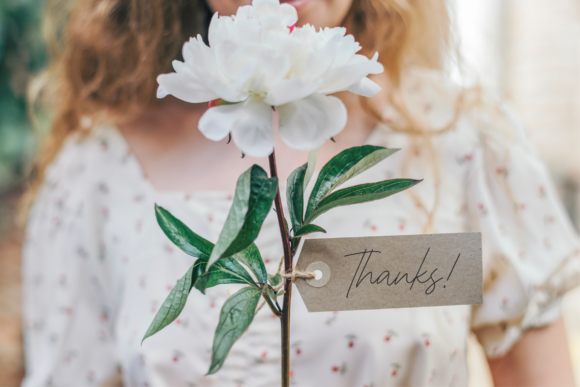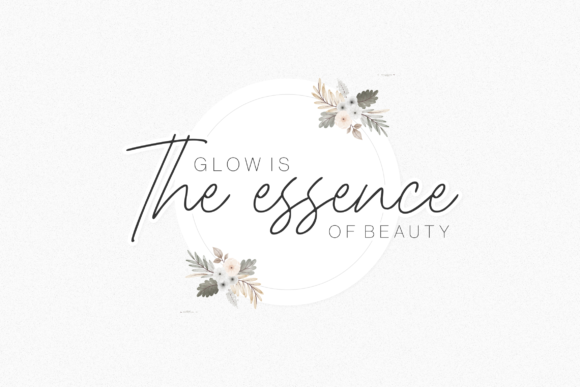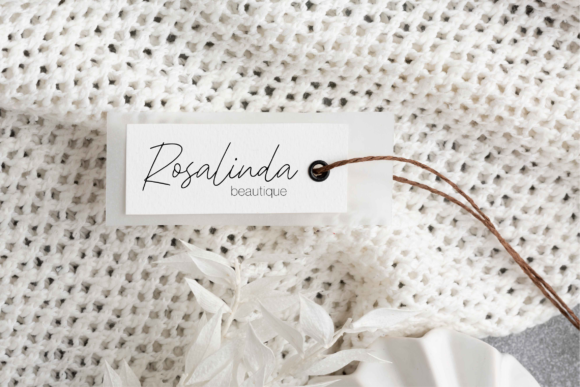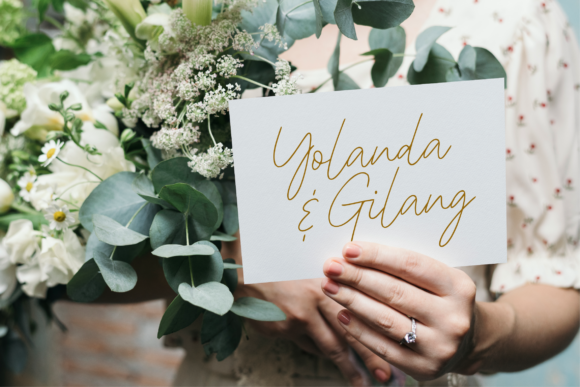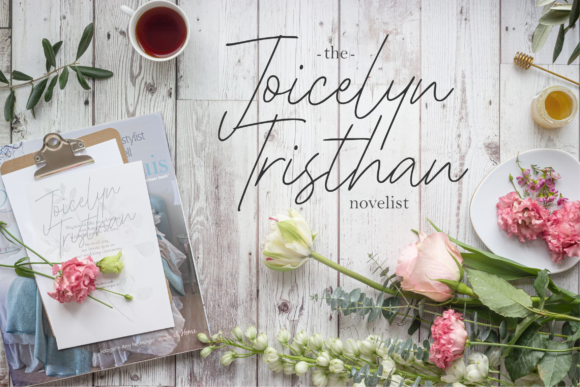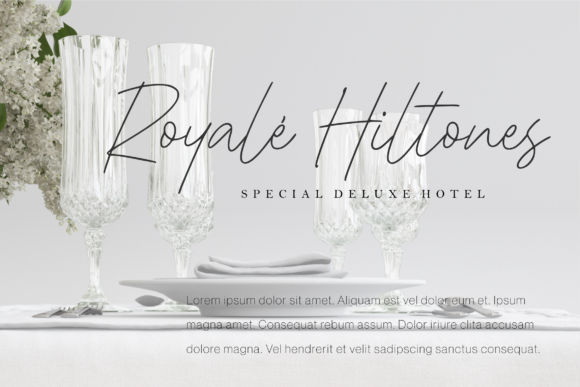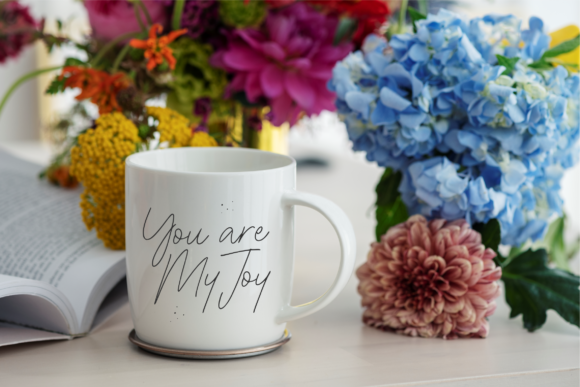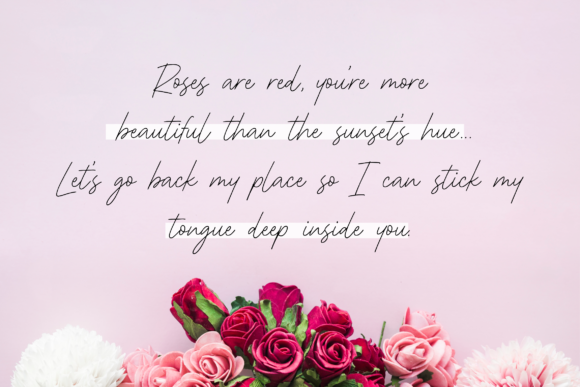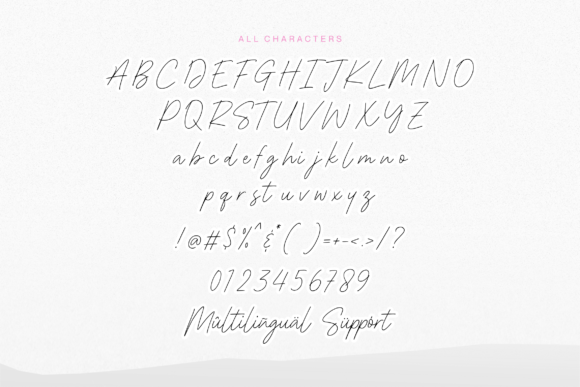
Shinymotion Font
About Shinymotion Font
“Shinymotion” is more than just a font; it’s a lovely and chic script that brings an element of elegance to a variety of projects. Tailor-made for product packaging, branding, magazine covers, social media, weddings, and more, Shinymotion offers a script font that is both charming and stylish. It is the perfect choice whether you’re aiming for captivating product presentation, creating a memorable brand identity, designing striking magazine covers, or expressing sentiments against various backgrounds.
Imagine Shinymotion enhancing your product packaging, where its chic script adds a unique and elegant flair. In branding projects, the font becomes a key element, establishing a distinctive visual identity that resonates with charm. Magazine covers come to life with Shinymotion, its lovely script capturing attention and setting a sophisticated tone.
On social media, Shinymotion stands out, whether in posts or as part of your brand logo, adding a touch of chic charm to your digital presence. For weddings and special events, the font brings a romantic and stylish feel to invitations and decor.
The versatility of Shinymotion makes it the perfect choice for expressing words against various backgrounds, ensuring legibility and style in any context. Let this lovely and chic script font be your go-to for infusing your projects with elegance and charm, making every design a visually captivating experience.